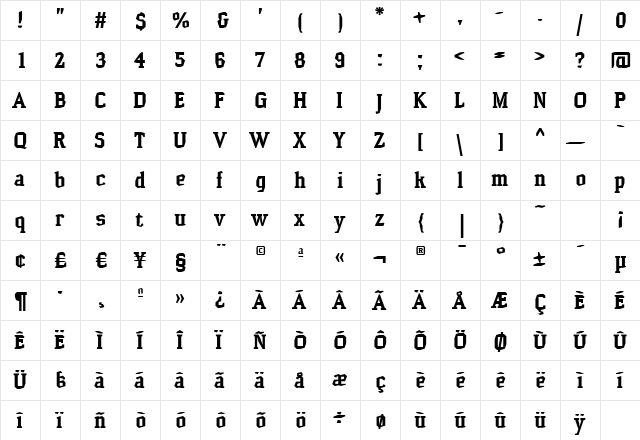
HammerheadBold Regular
Design Context for HammerheadBold Typeface
HammerheadBold offers clean, dependable letterforms without strong stylistic allegiance, making it a practical choice for designers who need flexibility. Its bold stroke weight gives it real presence on the page.